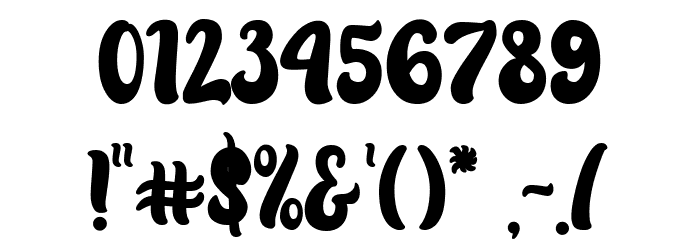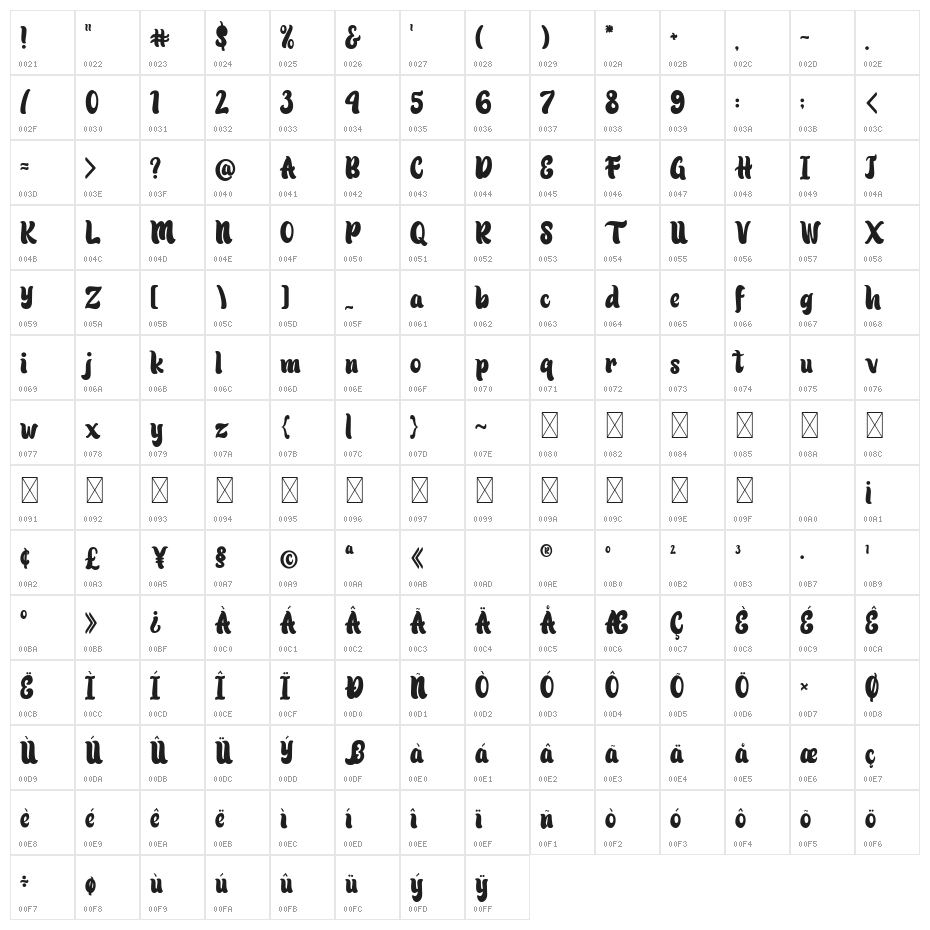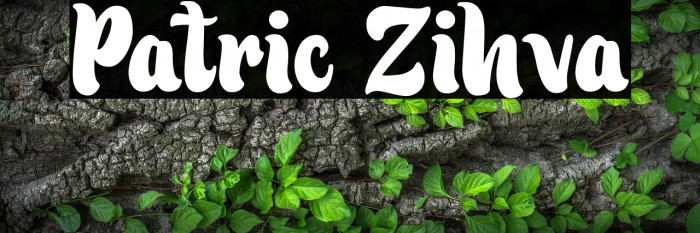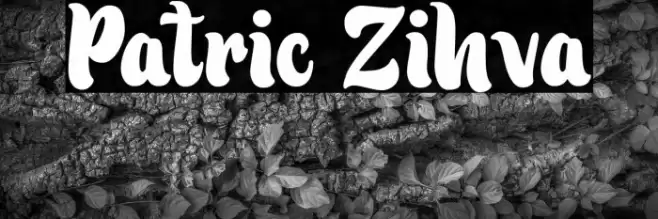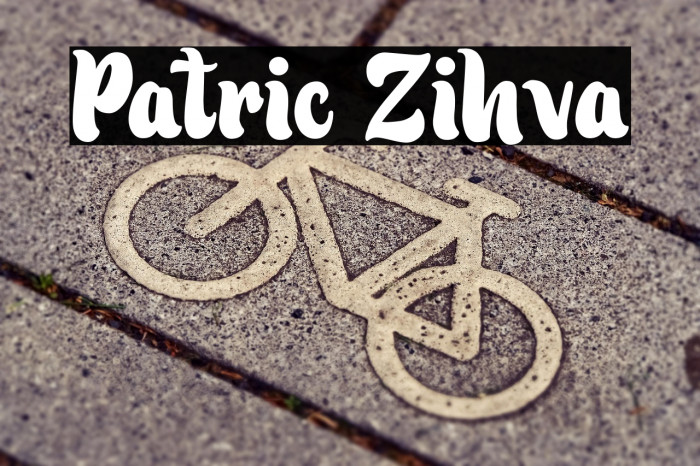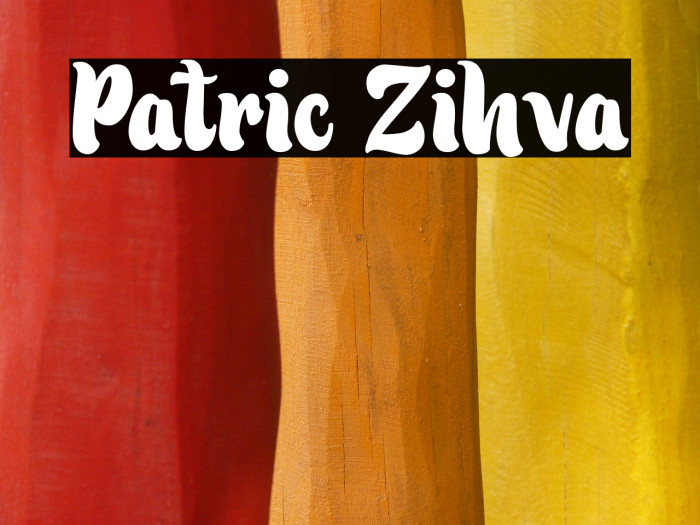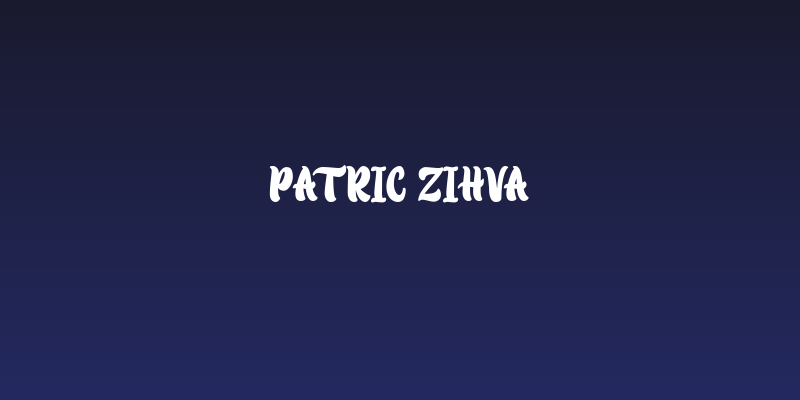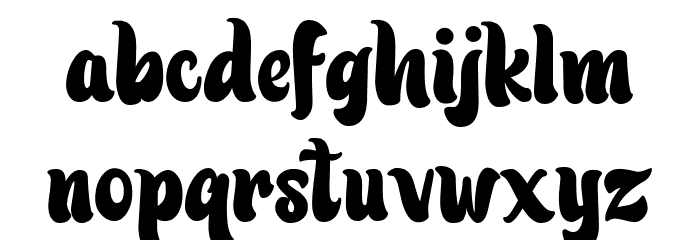
Patric Zihva Font
Patric Zihva Description
This font features a bold and playful style with a strong presence. The characters are rounded and have a flowing, almost whimsical appearance, making them stand out with their thick strokes and smooth curves. The uppercase letters are robust and dynamic, while the lowercase letters maintain a consistent and harmonious flow. The numbers are equally bold, ensuring they are easily legible. Special characters are creatively designed, adding to the font's overall playful aesthetic. This font's unique style makes it suitable for projects that require a fun and engaging look.
| Overall Style | Playful, Whimsical |
| Proposed Projects | Ideal for children's books, playful branding, posters, and creative invitations. |